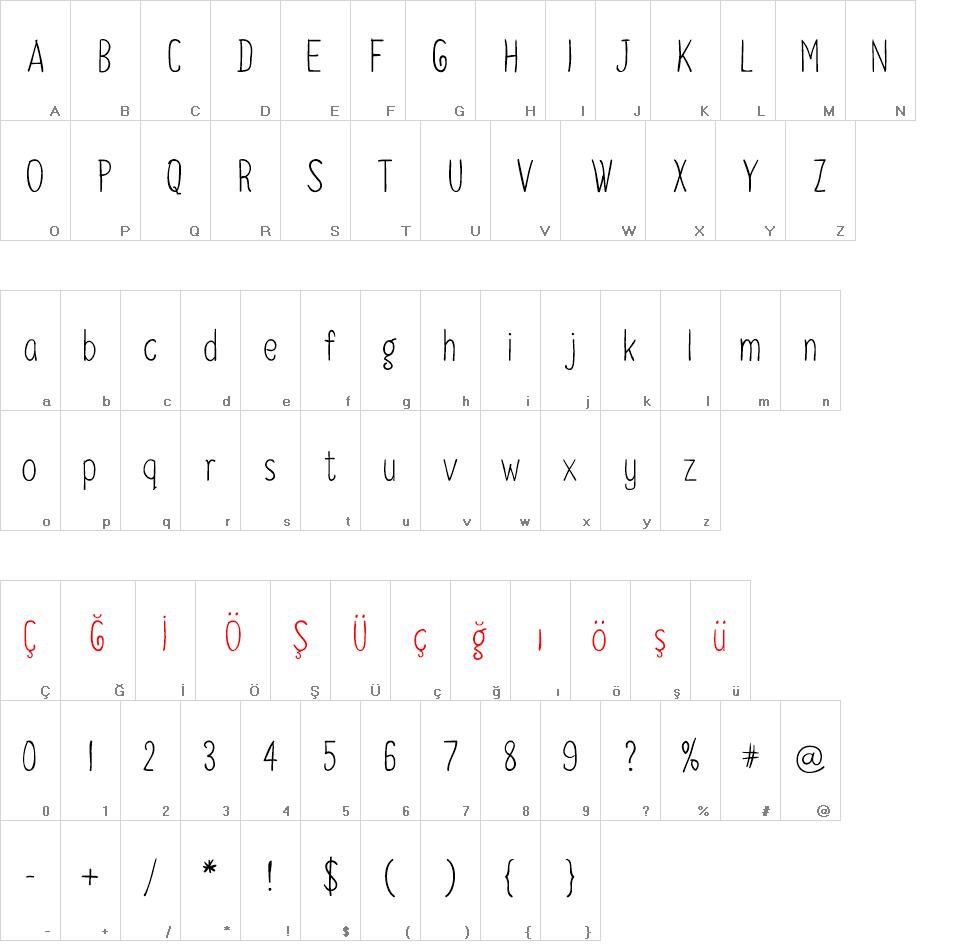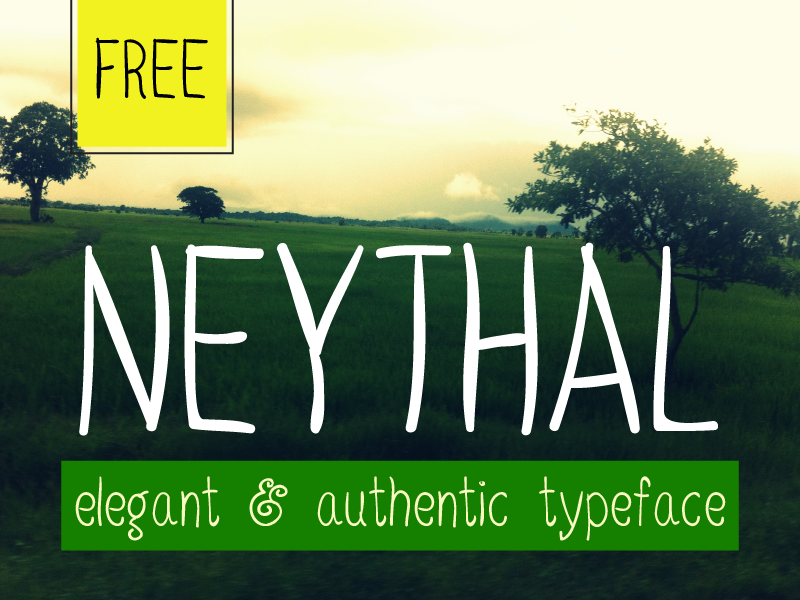
Neythal font
Neythal is a handwriting font that adds the feeling of authentic handwriting to your texts. It combines a mischievous spirit and cheerful style. Its playful letterforms can be use to make classically modern designs and typographical stuff. Neythal typeface exudes delight and happiness. It fits everywhere, graciously. It is perfect for a variety of designs.
Fun fact about the name of the font: Neythal is a Tamil  word and it's the word for seashore and adjoining lands. I love places with lovely seashore, very much.